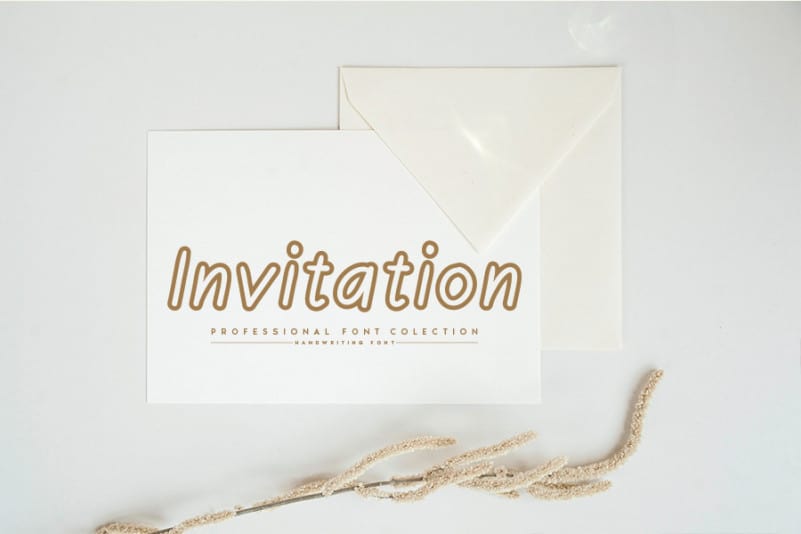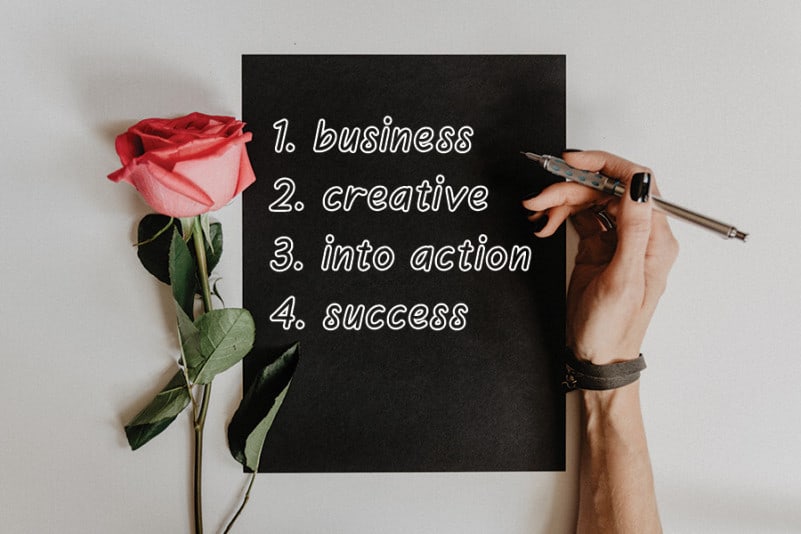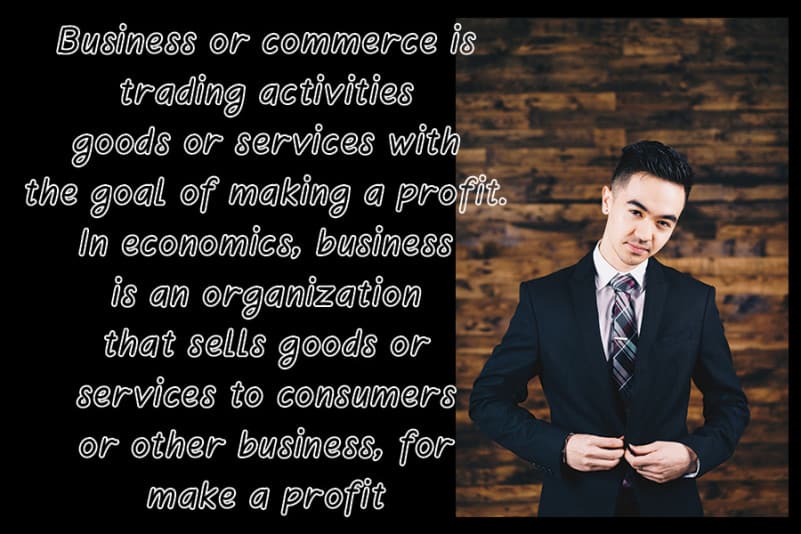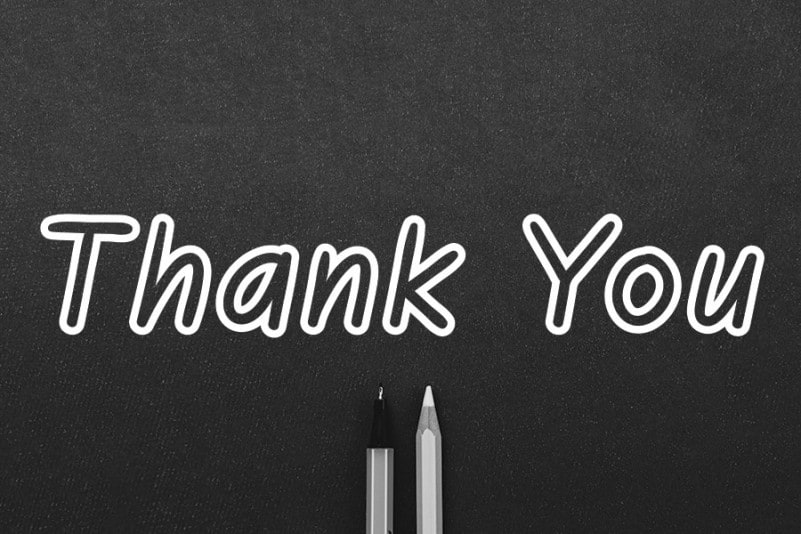
Homeyou Display Font
Homeyou Display Font is a unique handwritten font. It features an incredibly classic style, while still keeping a friendly feel. Homeyou is the perfect font for making original and outstanding designs.